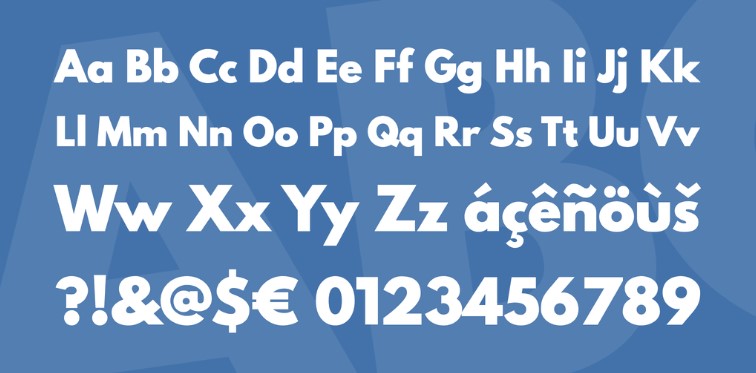
Spartan Font
Spartan Font is famous for its use in Adobe. This typeface is also famous for its text generation and pairing function and it is known as Greek font. Collectively with company organization company enterprise organization emblems and metallic fabricated lettering. That is an in addition lovable and specific kind in sans serif typeface own family.
The fashion of this font can be very new and elegant. The wonderful’s fonts are completed, especially, calligraphy styles and designs of numerous works of artwork. Spartan Font Free You may use this font in all of the portray works and pinnacle-notch stylish works which is probably very vital to you for your on foot placement and one-of-a-kind designing opportunities which you much like the kid font. This font can be finished in all unique duties of designing further to calligraphy.
Exquisite global locations, many people aren’t privy to the wonderful’s grobold font styles and they even do not apprehend what form of this. Download There are forms of markets. One in each of that could be a demo model is available as in fact. It consists of characters like better, lowercase, numerals.